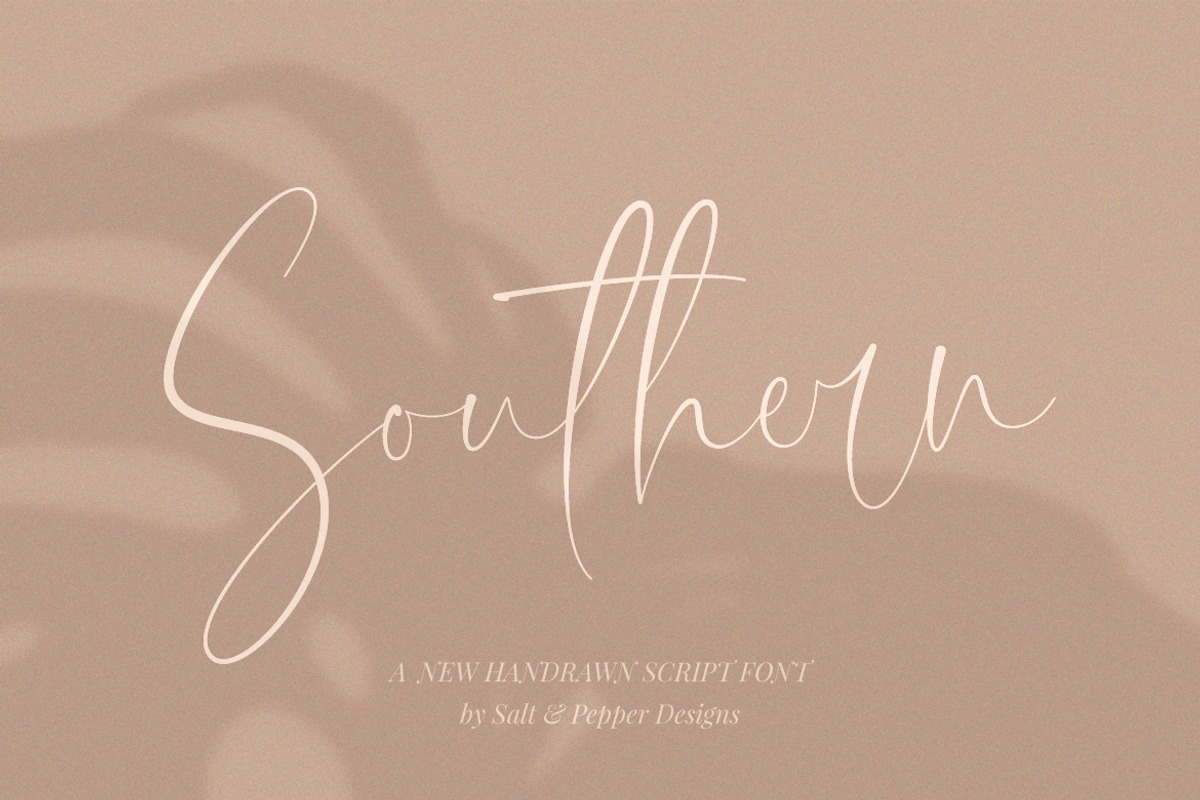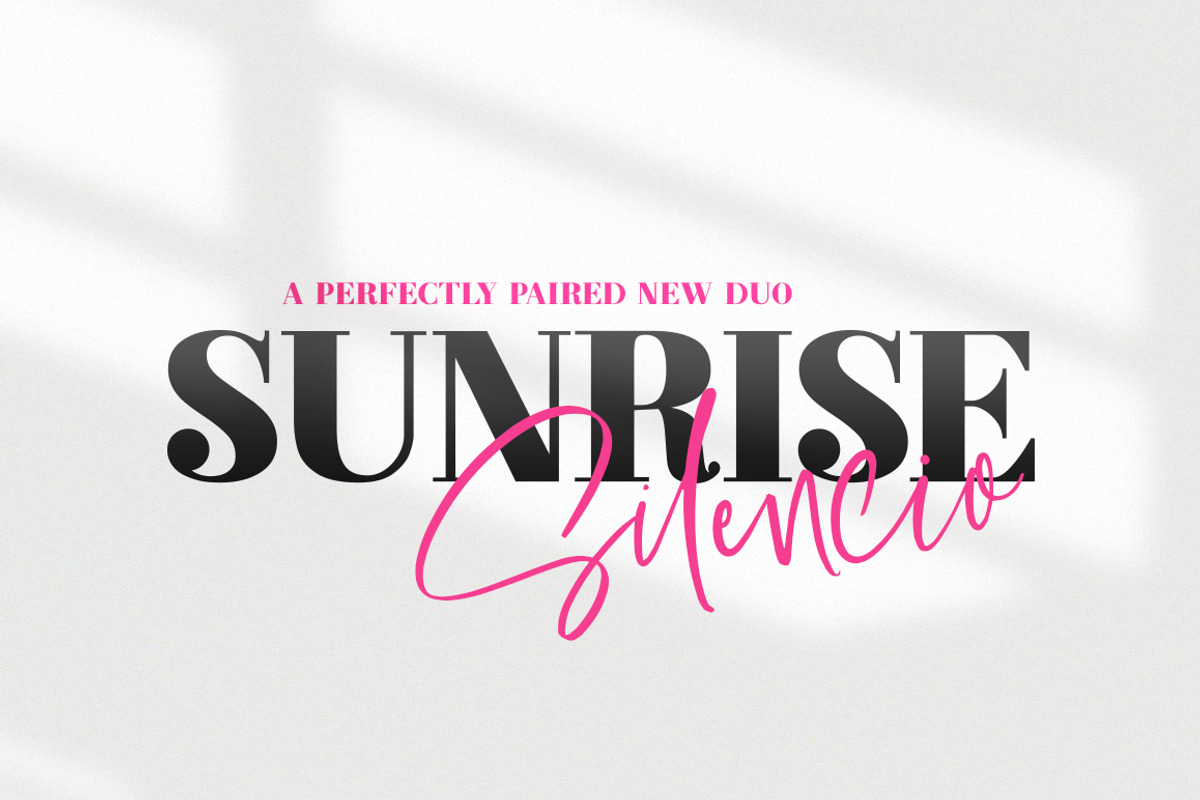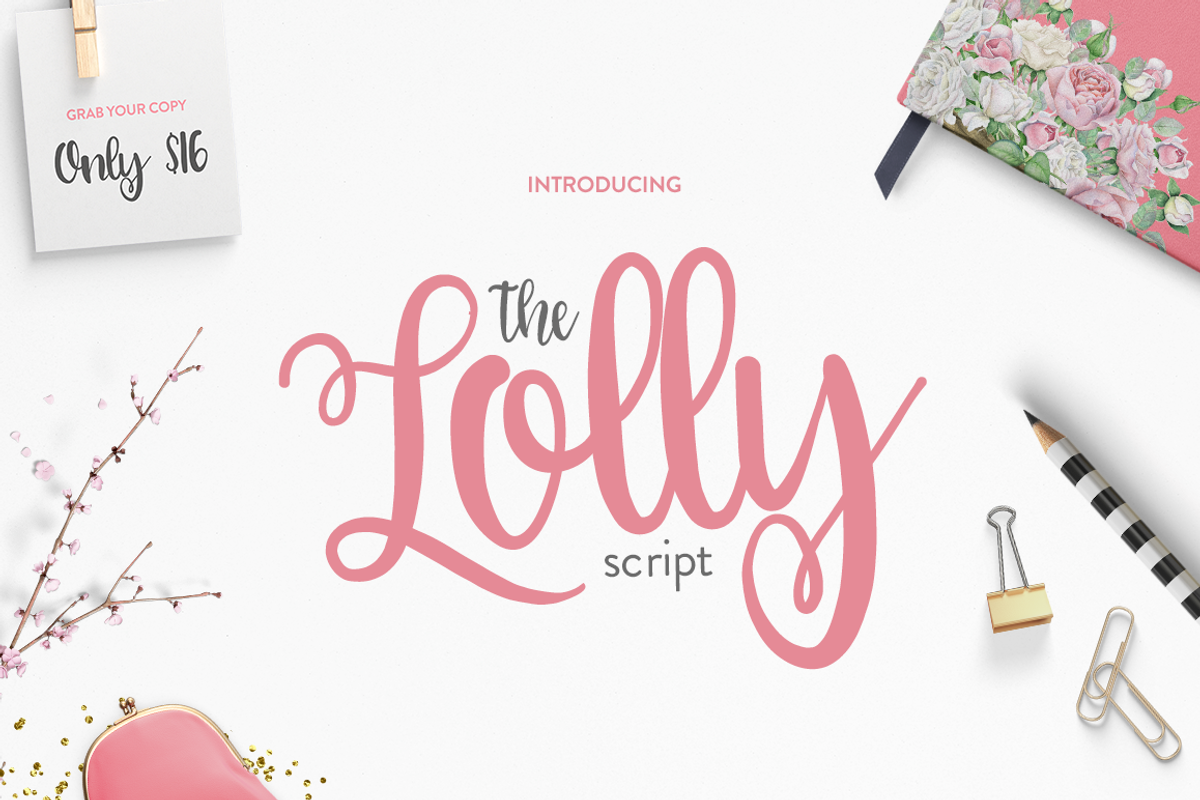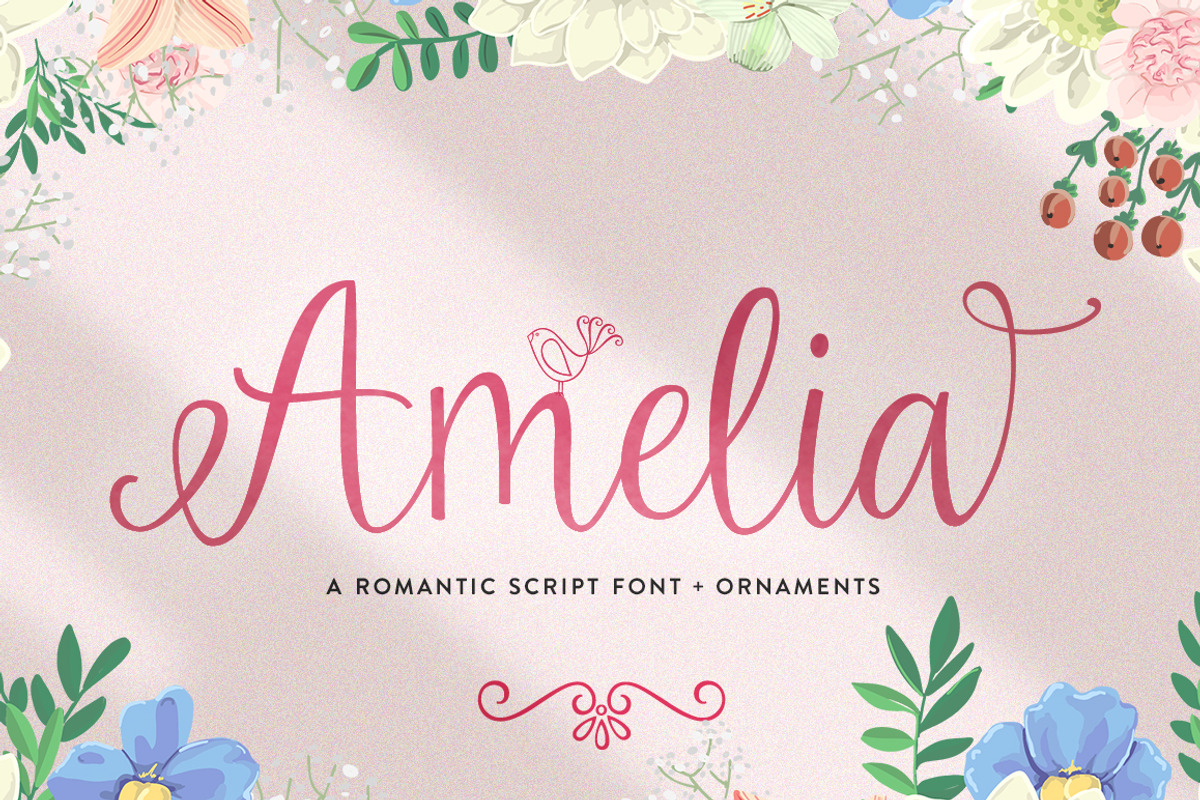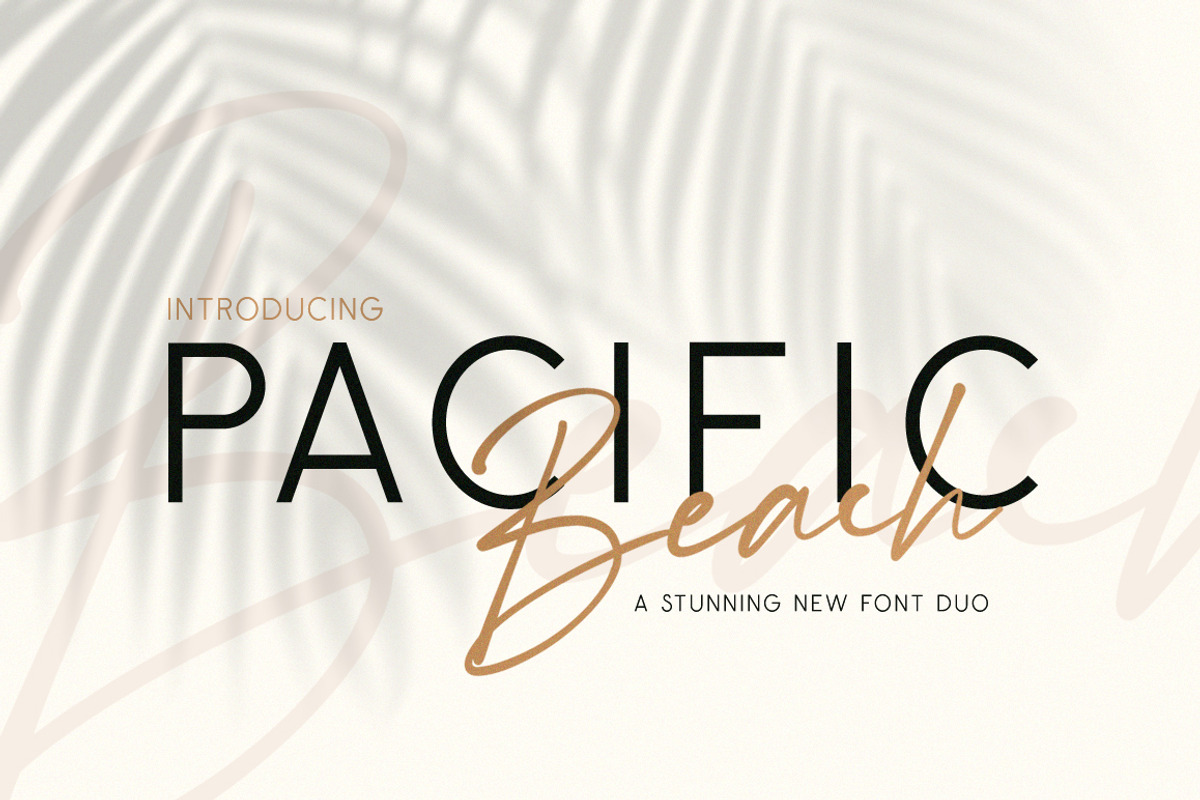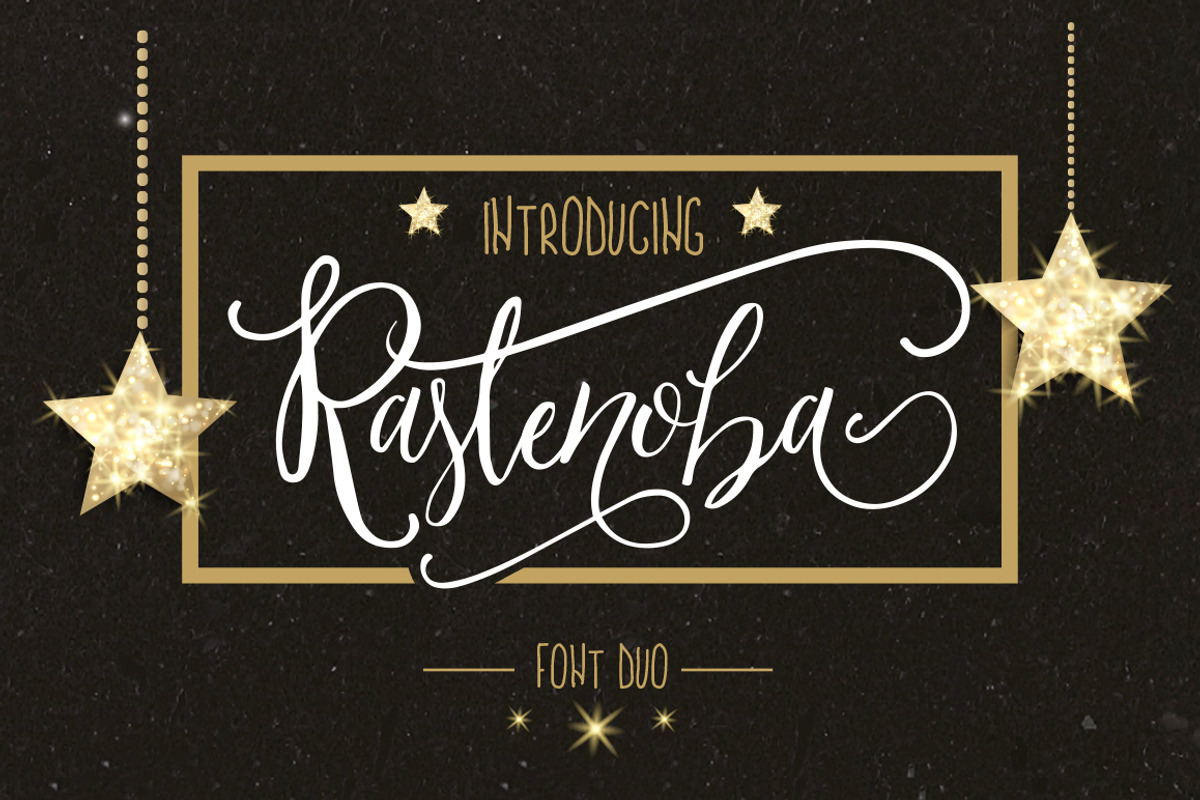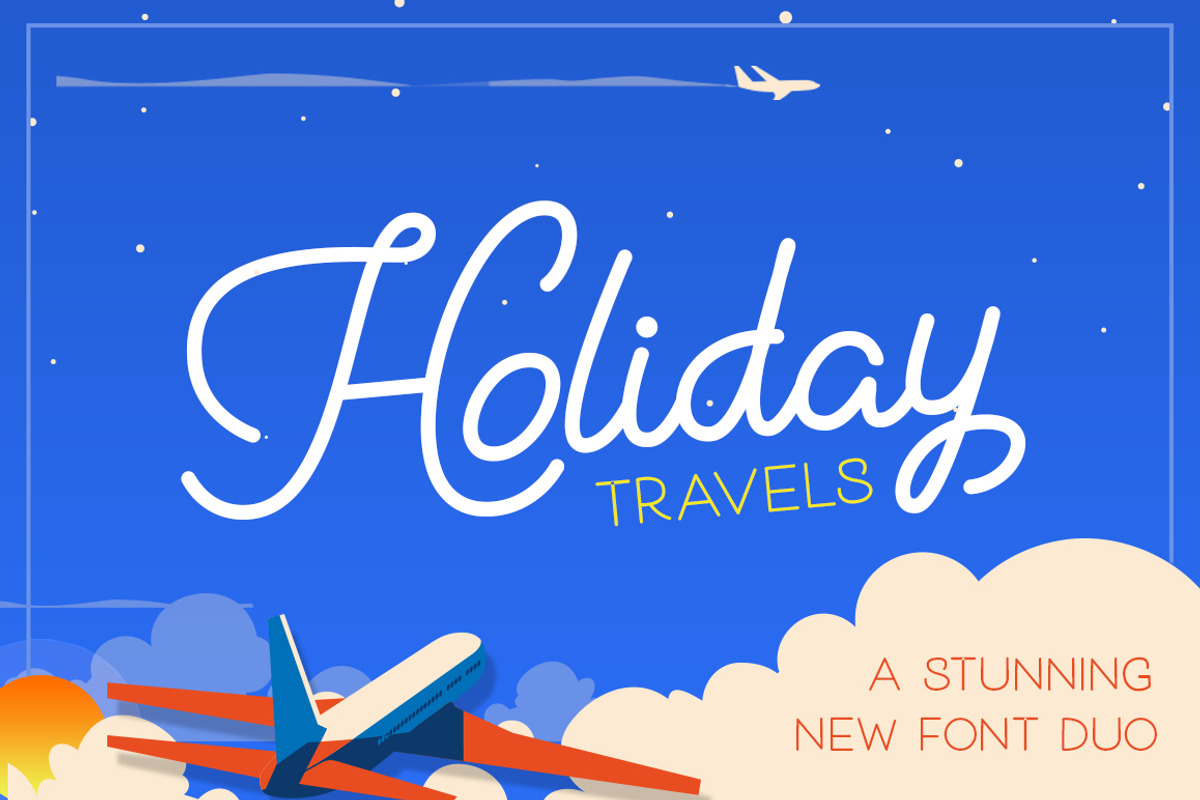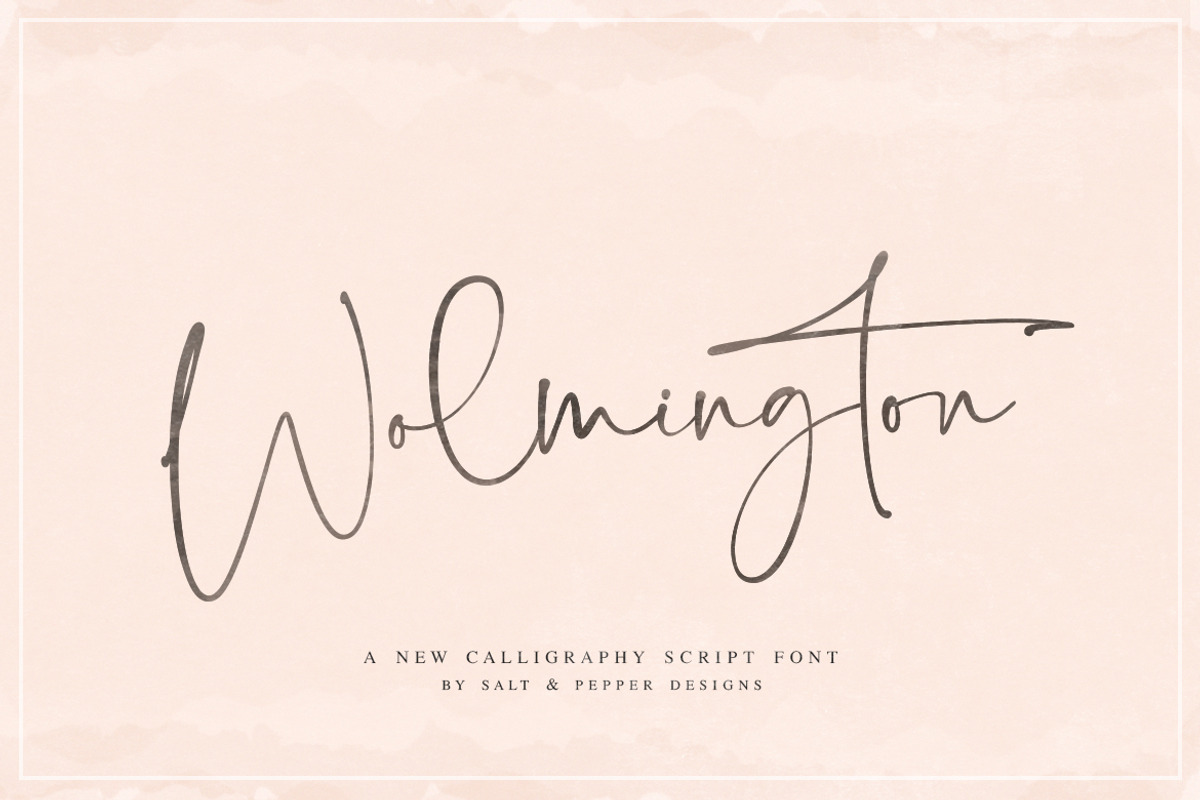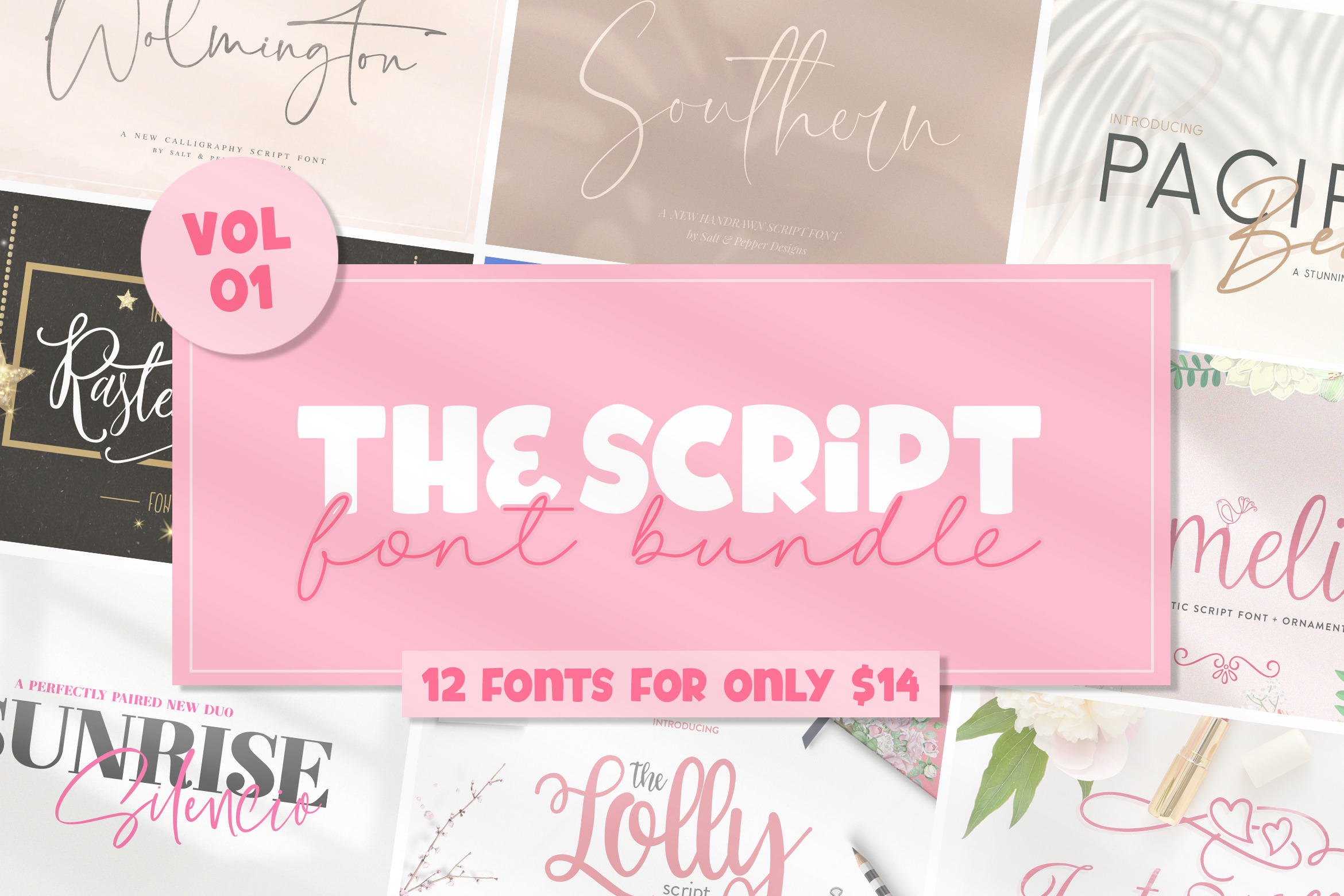
The Script Font Bundle - Vol 01
Looking for Script Fonts, Handwriting Fonts, Craft Fonts, Wedding Fonts, Beautiful Fonts, Cricut Fonts, Cursive Fonts? Introducing The Script Font Bundle. The Script Font Bundle (Vol 01) is a LIMITED TIME OFFER!! This pack includes cursive fonts, girly fonts, calligraphy fonts, handwritten fonts, handrawn fonts, script fonts and so many more styles.